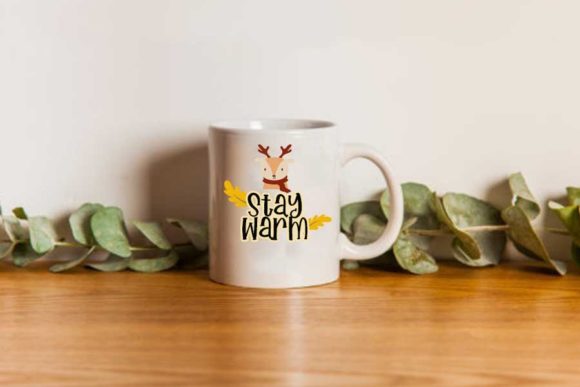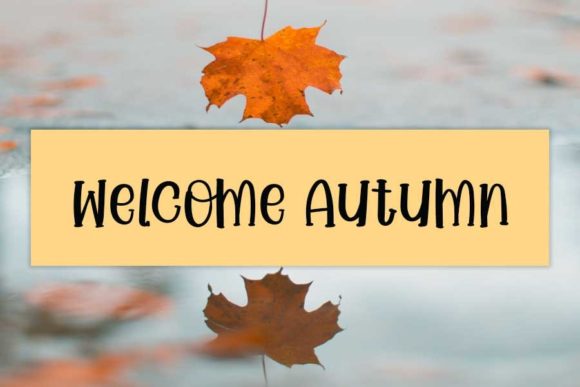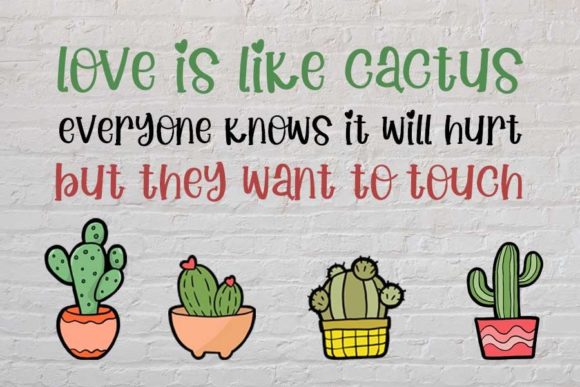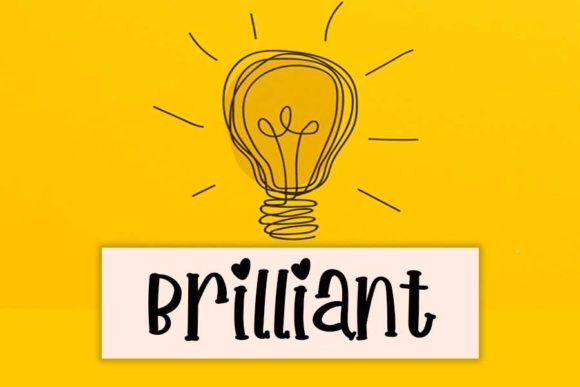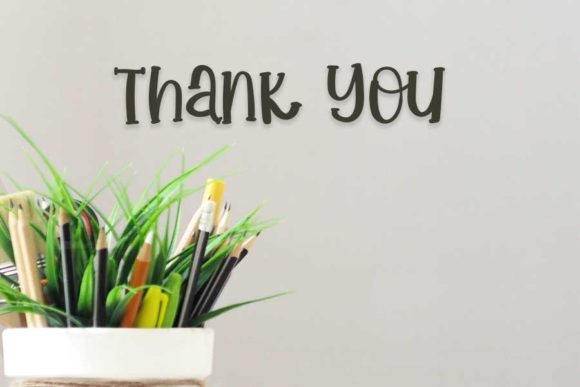
Diamond Font: Elevate Your Designs with a Chic and Playful Handwritten Style
Are you on the hunt for a font that can add a touch of elegance and whimsy to your designs? Look no further than the Diamond Font. This beautiful, handwritten font is perfect for designers and crafters who want to create stunning visual content that stands out from the crowd. With its natural and unique style, Diamond Font is incredibly versatile and can be used in a wide range of designs, from invitations and branding materials to social media graphics and more.
What Makes Diamond Font So Special?
Diamond Font is a chic and playful handwritten font that is sure to capture the attention of your audience. Its unique style is characterized by flowing lines, subtle imperfections, and a dash of elegance, making it perfect for designs that require a personal touch. Whether you’re creating a wedding invitation, a social media graphic, or a brand identity, Diamond Font is sure to add a touch of sophistication and whimsy to your design.
The beauty of Diamond Font lies in its versatility. With this font, the only limit is your imagination! You can use it to create a wide range of designs, including:
- Wedding Invitations: Add a touch of romance and elegance to your wedding invitations with Diamond Font. Its flowing lines and subtle imperfections make it perfect for creating beautiful, handwritten-style invitations.
- Branding Materials: Use Diamond Font to create stunning brand identities, including logos, business cards, and letterheads. Its unique style is sure to help your brand stand out from the crowd.
- Social Media Graphics: Create eye-catching social media graphics with Diamond Font. Its playful and elegant style makes it perfect for creating engaging graphics that will capture the attention of your audience.
- Crafting Projects: If you’re a crafter, you’ll love Diamond Font. Use it to create beautiful handmade cards, gift tags, and other crafting projects that require a personal touch.
Why Choose Diamond Font?
So, why choose Diamond Font over other fonts? Here are just a few reasons why designers and crafters love this beautiful handwritten font:
- Unique Style: Diamond Font has a unique and natural style that is sure to add a touch of elegance and whimsy to your designs.
- Versatility: With Diamond Font, you can create a wide range of designs, from invitations and branding materials to social media graphics and crafting projects.
- Easy to Read: Despite its elegant and flowing lines, Diamond Font is easy to read, making it perfect for designs that require a clear and concise message.
- High-Quality: Diamond Font is a high-quality font that is designed to deliver exceptional results. Its subtle imperfections and natural style make it perfect for creating stunning visual content.
Tips for Using Diamond Font
Here are a few tips for using Diamond Font in your designs:
- Pair it with Other Fonts: Diamond Font pairs well with other fonts, including sans-serif and serif fonts. Experiment with different font combinations to create stunning visual content.
- Use it for Headings: Diamond Font is perfect for headings and titles. Use it to create eye-catching headings that will capture the attention of your audience.
- Add a Personal Touch: Diamond Font is perfect for adding a personal touch to your designs. Use it to create handmade-style designs that will resonate with your audience.
In conclusion, Diamond Font is a beautiful and versatile handwritten font that is perfect for designers and crafters who want to create stunning visual content. Its unique style, versatility, and high-quality design make it an excellent choice for a wide range of designs. So, why not give Diamond Font a try and see how it can elevate your designs?